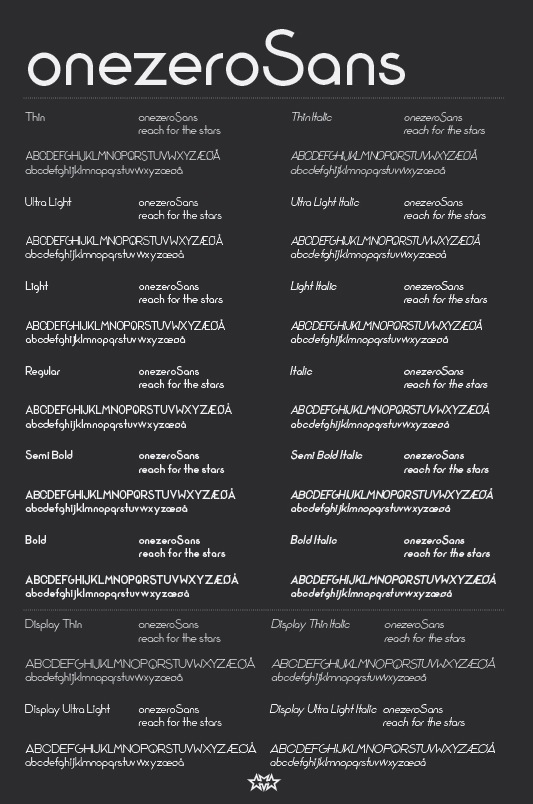
Dan Erik Rønnbäck
Dan Erik Rønnbäck (Noob Design, Kragerø, Norway) is a Norwegian designer who has a Bachelors degree in Multimedia Arts from John Moores University Liverpool, UK. He created an octagonal display face and a multiline art deco typeface in 2011. In 2013, while studying at IAD at Hyper Island in Stockholm, he created onezero Display, a large sans family. |